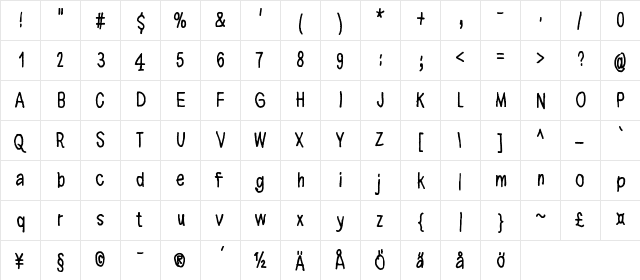
Now your conscience is clear Regular
Design Context for Now your conscience is clear Typeface
Now your conscience is clear offers clean, dependable letterforms without strong stylistic allegiance, making it a practical choice for designers who need flexibility.